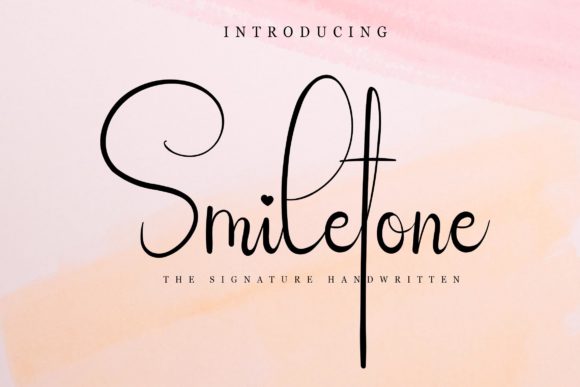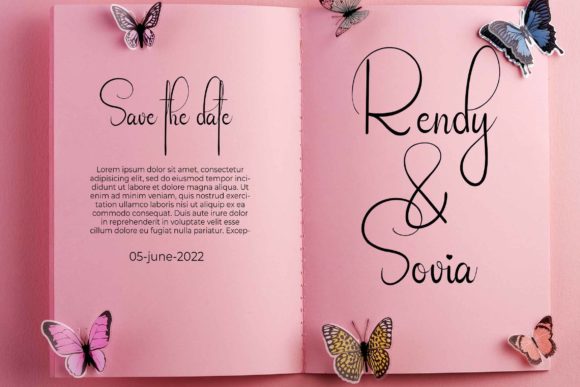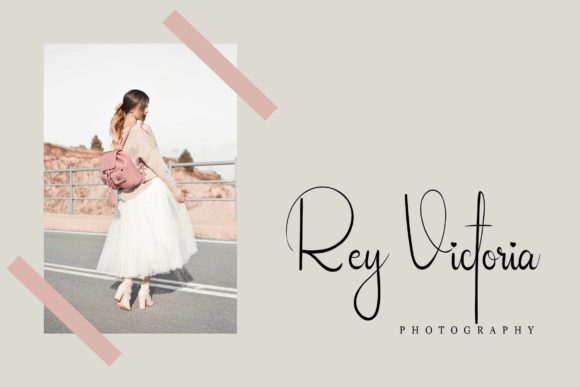
About Smiletone Font
“Smiletone” sounds like a truly unique and versatile font. Its elegance and impressive handwritten signature style make it suitable for a wide range of applications, from formal to informal designs. The fact that each letter has a unique and beautiful touch adds to its charm, making it perfect for designs that require an elegant and beautiful appearance.
The suitability of “Smiletone” for creating attractive logos, branding, and quotes makes it a valuable asset for designers. It can help in creating designs that not only communicate effectively but also leave a lasting impression.
Moreover, the fact that this font is PUA encoded is a significant advantage. PUA, or Private Use Areas, are special areas in the Unicode standard that allow vendors to include their own glyphs. This means you can access all of the amazing glyphs and ligatures with ease, providing you with a wide range of options to enhance your designs.
In conclusion, “Smiletone” is more than just a font. It’s a tool that can help bring your creative visions to life, enhancing the beauty and effectiveness of your projects. Whether you’re a seasoned designer or just starting out, “Smiletone” could be a great addition to your font library. Let me know if there’s anything else you’d like to discuss about this font or any other topic!